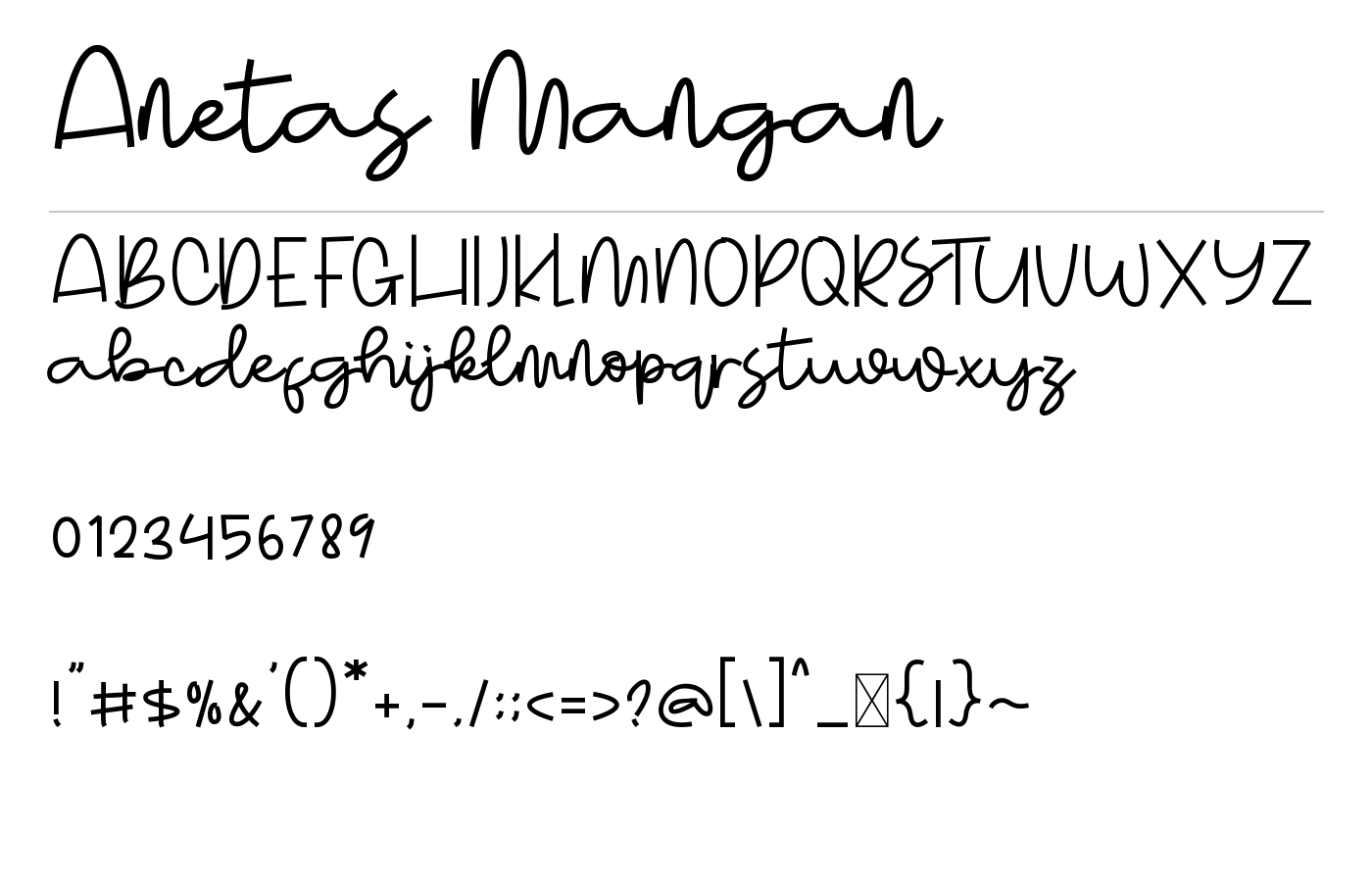
Anetas Mangan is a casual, handwritten script font featuring a light and airy feel with playful, slightly irregular strokes that bring a personal touch. Its tall, narrow letterforms and lively connections make it perfect for creative, friendly branding, invitations, and informal headlines where a warm, approachable vibe is desired. This font works well in designs that seek a charming and authentic look without sacrificing readability.
Anetas Mangan Font